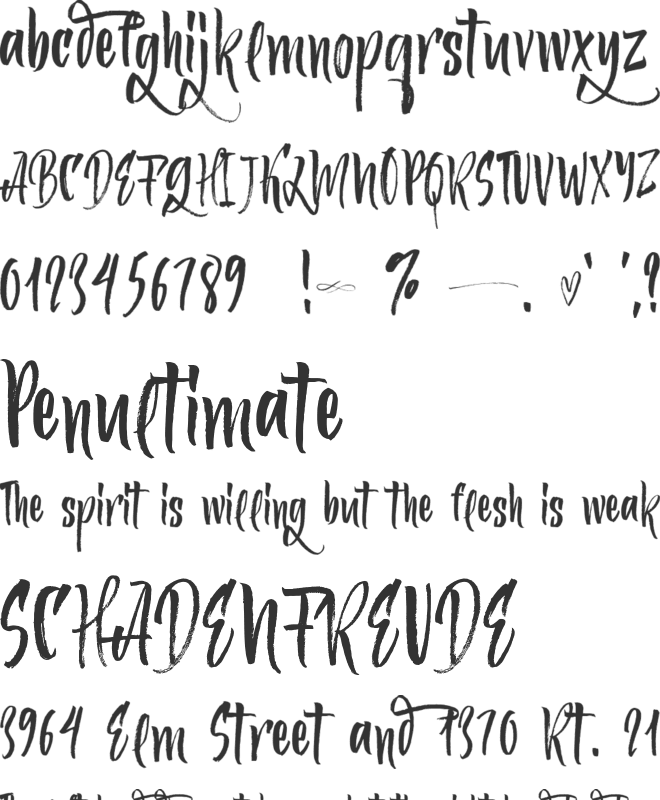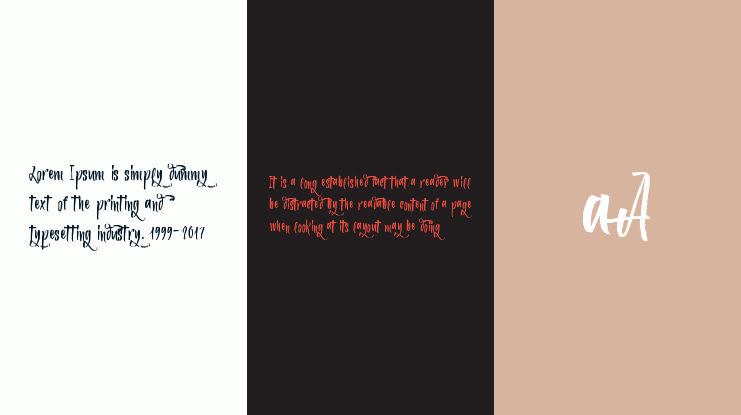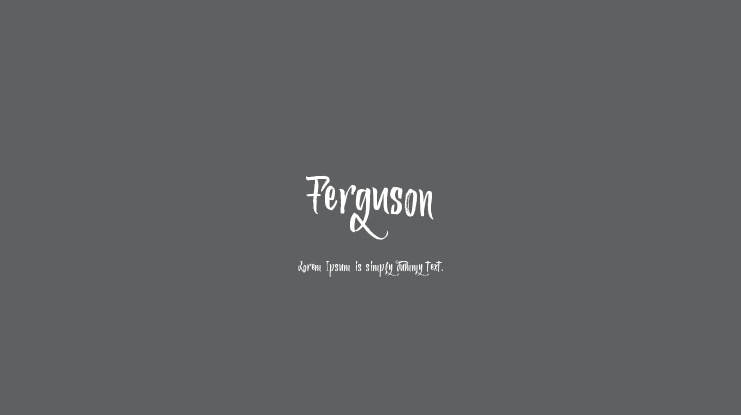
Ferguson Font
Ferguson Brush is unique textured brush font, contemporary approach to design, handmade natural with an irregular baseline. Suitable for use in title design. Such as apparel, invitations, books tittle, stationery design, quotes, branding, logos, greeting card, t-shirt, packaging design, poster and more.